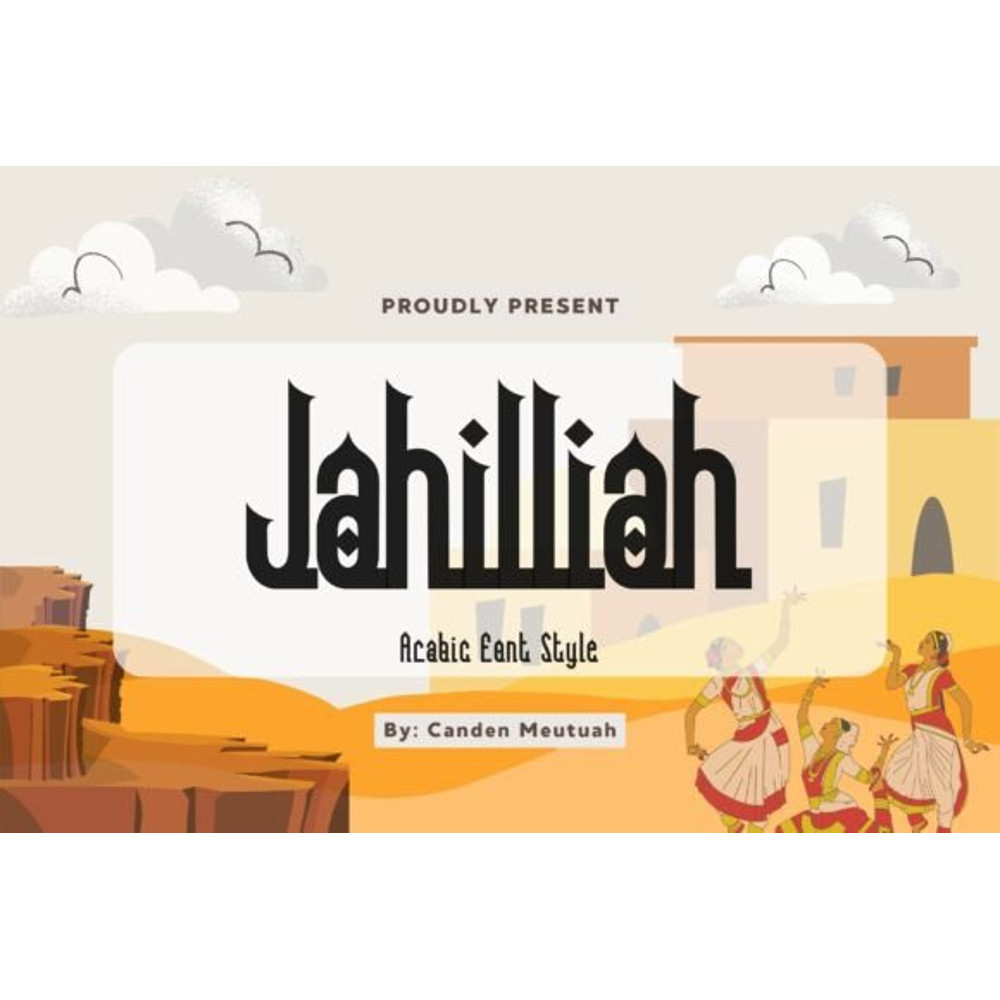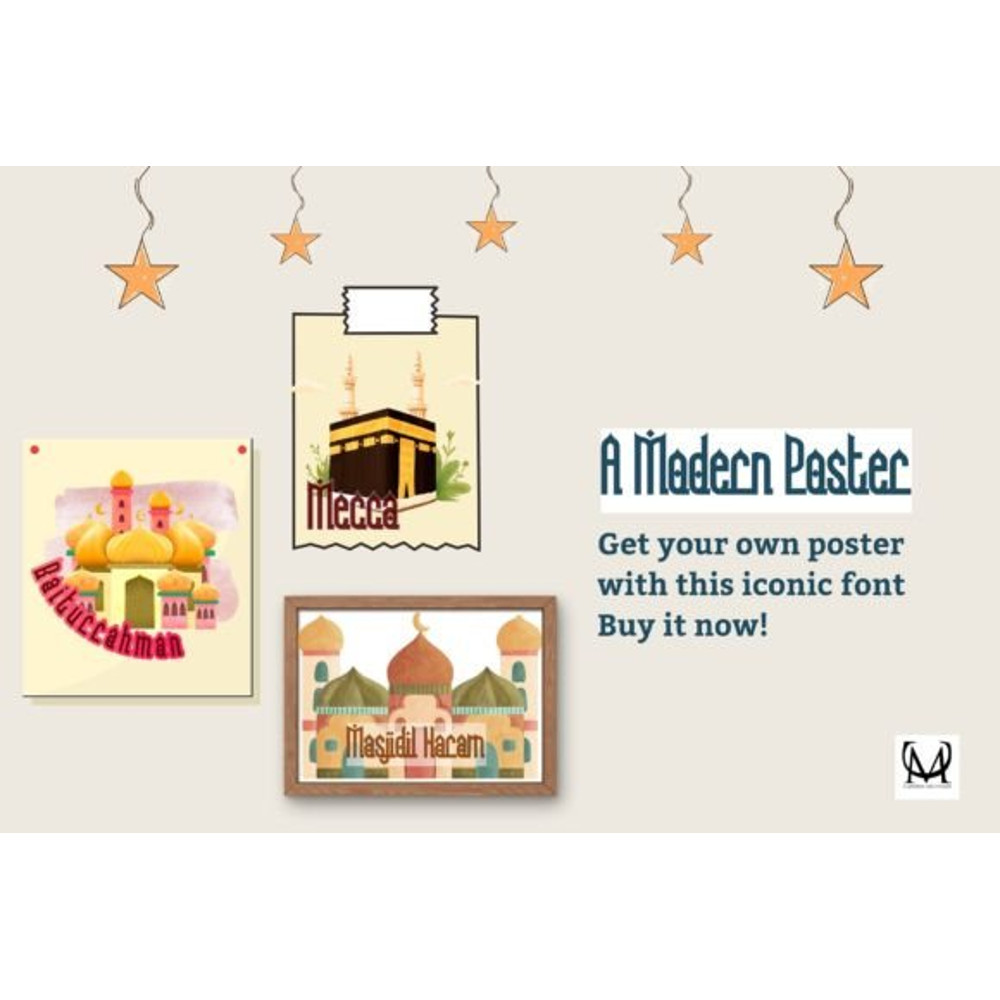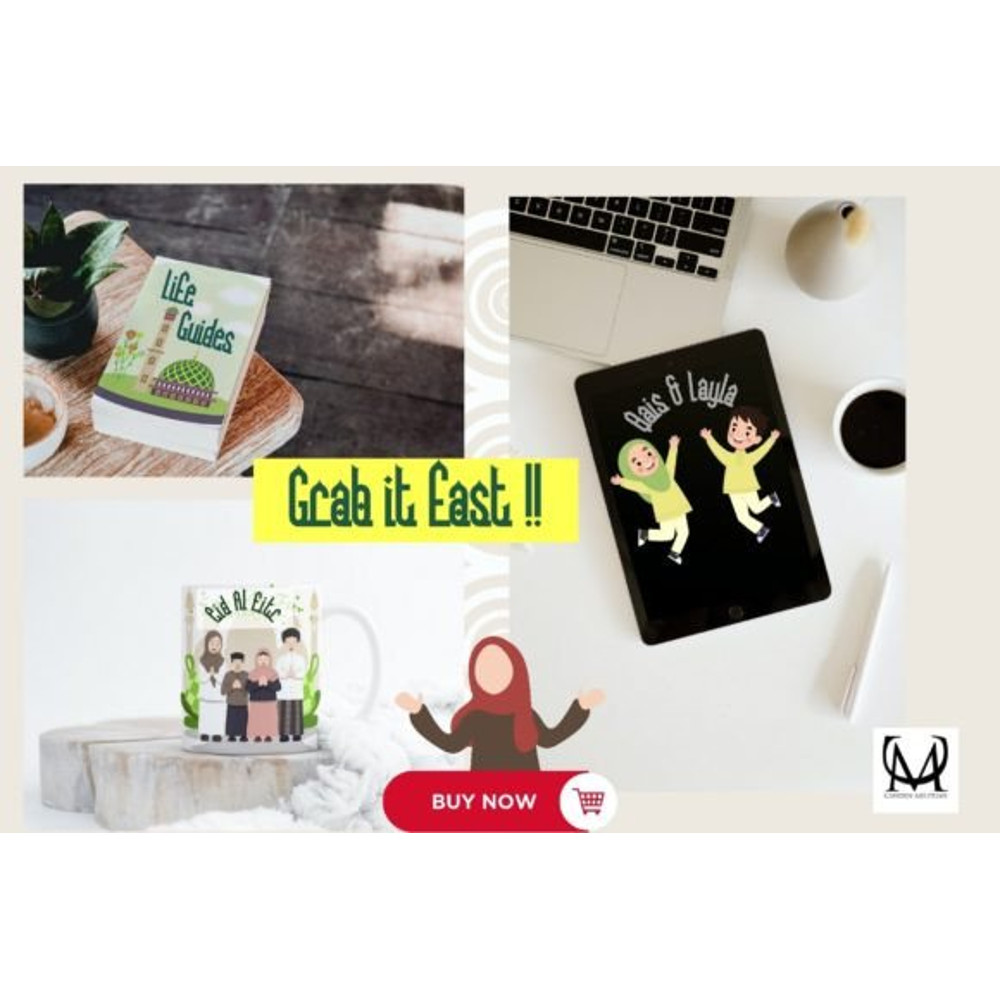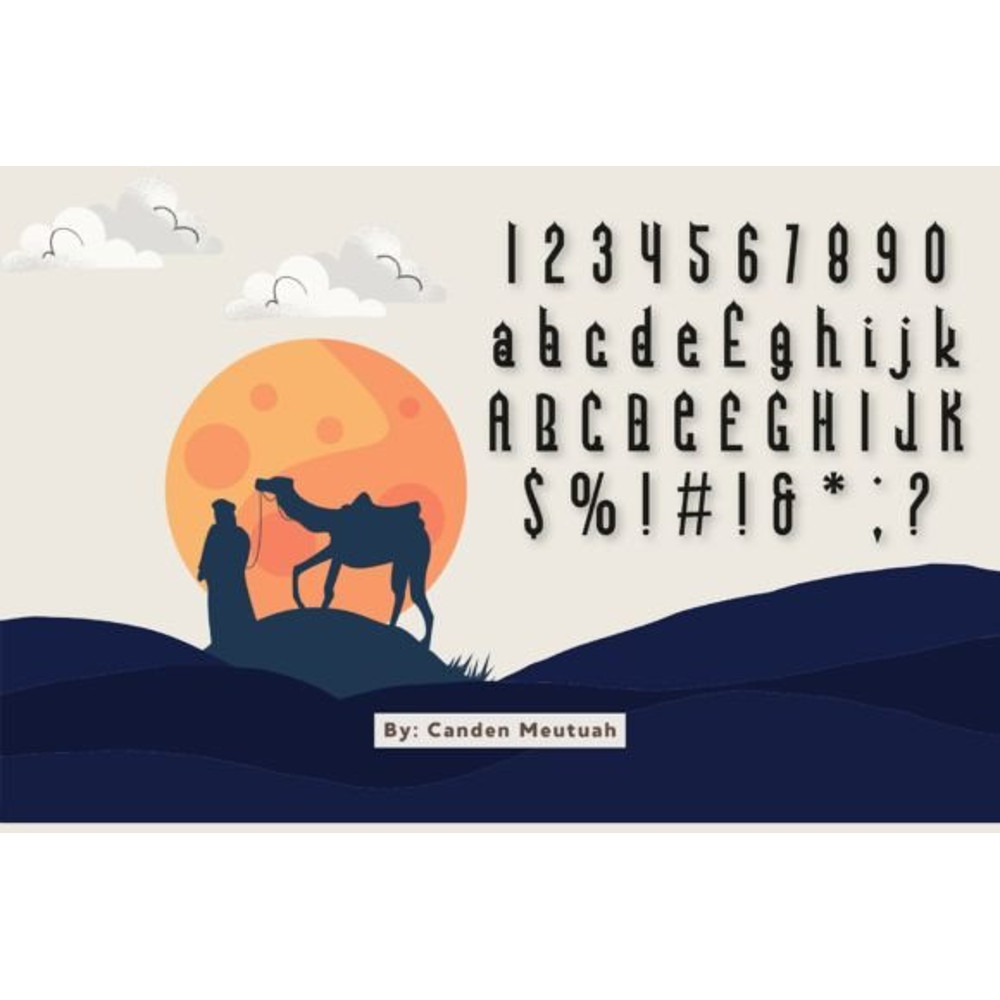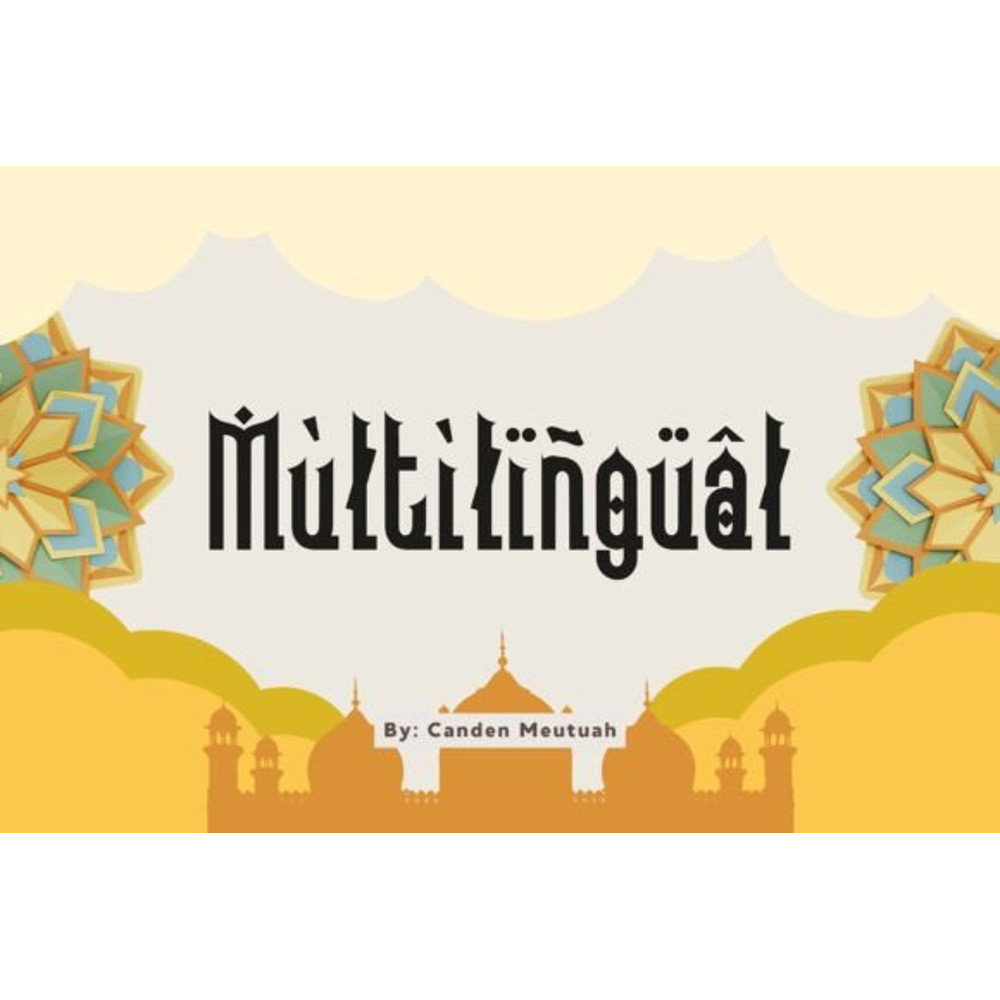
Jahilliah Font
Jahilliah this is a simple and elegant font full of modern style Arabic.
This font is very suitable for you to use for many purposes such as branding, logos, wedding designs, social media posts, advertising, product packaging, product design, labels, photography, watermarks, invitations, stationery, and any project.